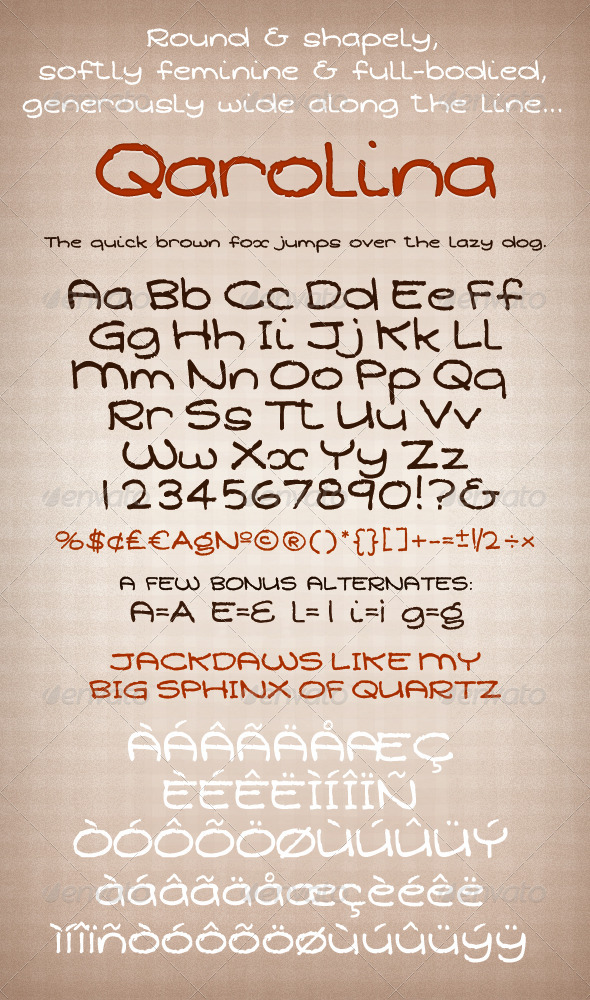
Soft Round Feminine Font - Qarolina
Soft Round Feminine Font - Qarolina - Hand-writing Script
When you need a generously rounded shapely feminine font for your project. Hand written script with just the right amount of texture in the outlines. There are a few alternates as shown in the preview image.